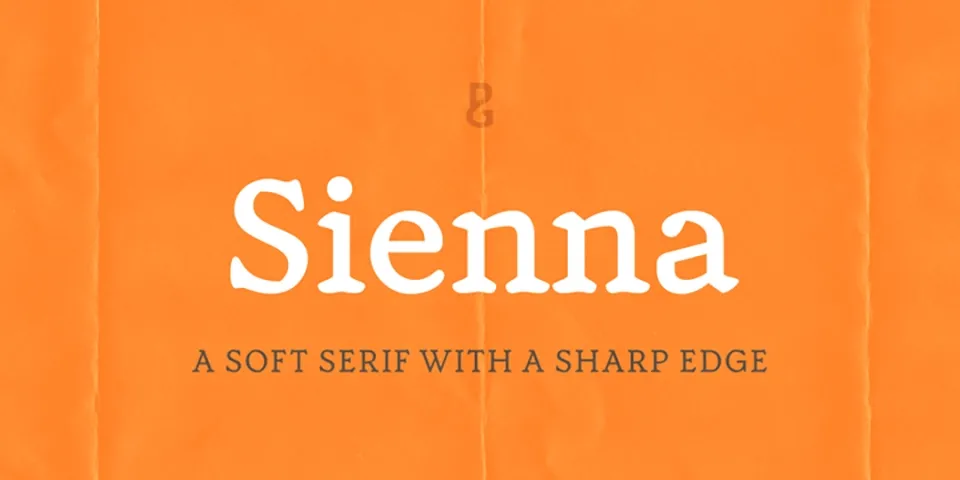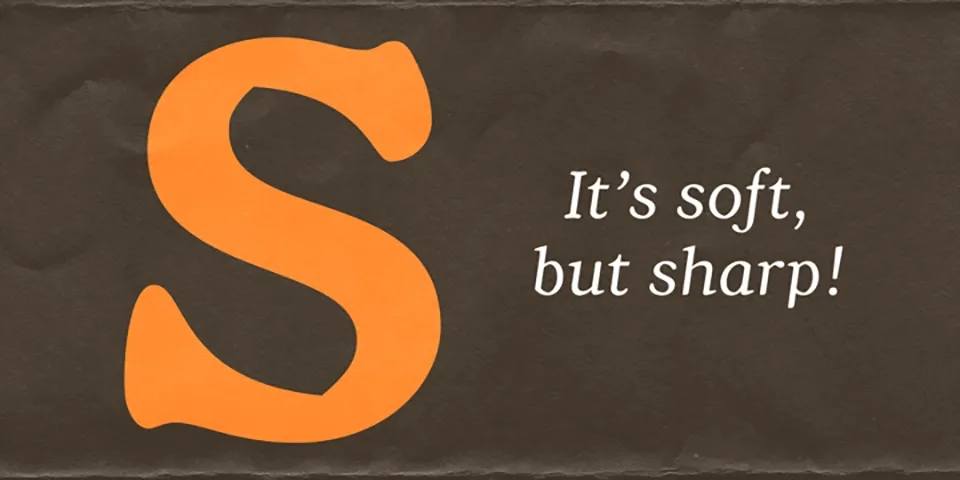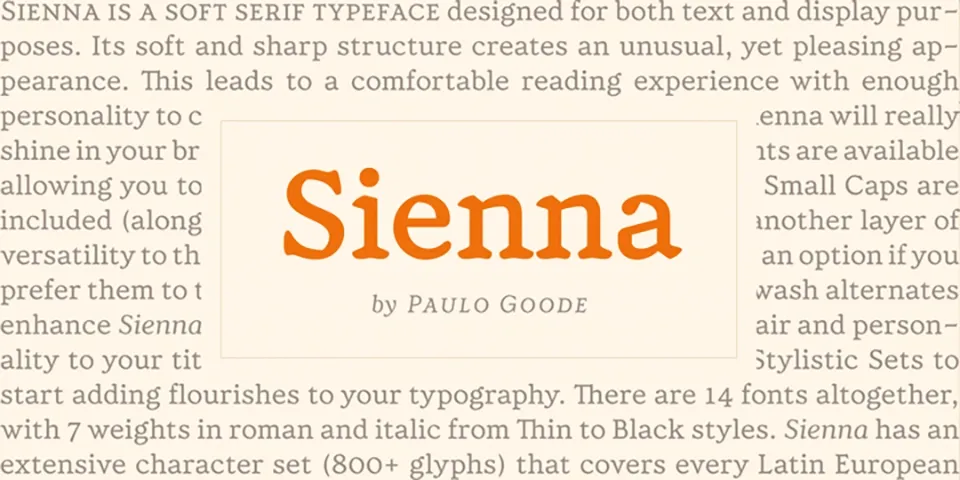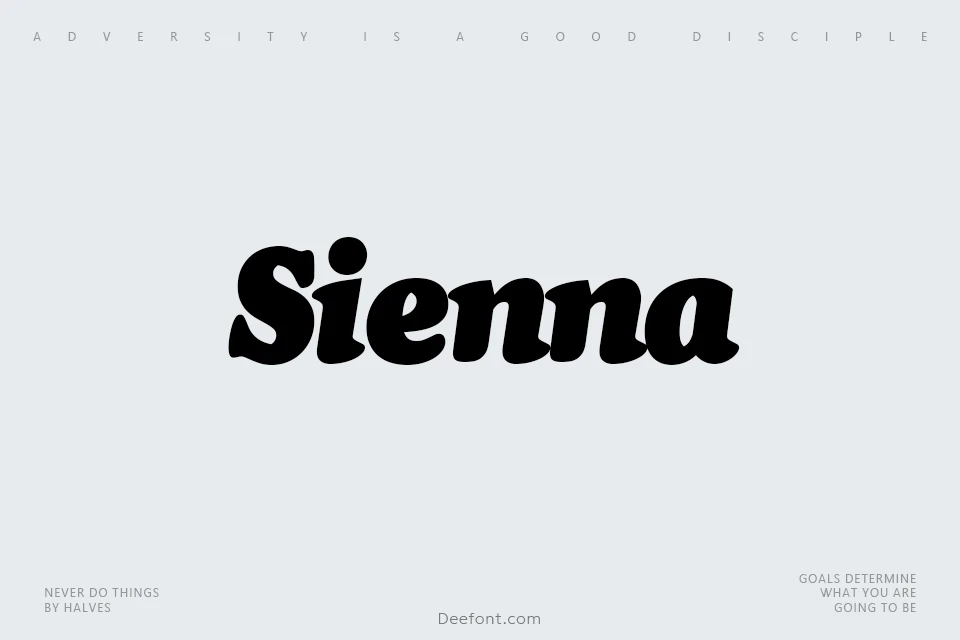
Sienna Font
Sienna is a soft serif typeface designed for both text and display purposes by Paulo Goode. Its soft and sharp structure creates an unusual, yet pleasing appearance that leads to a comfortable reading experience with enough personality to create impactful titles and headlines. Sienna will really shine in your branding projects, offering variable versions that allow you to fine-tune the weight to your exact liking. The typeface includes Small Caps with matching diacritics, adding another layer of versatility. There are 14 fonts altogether, with 7 weights in roman and italic from Thin to Black styles. Sienna has an extensive character set with 800+ glyphs that covers every Latin European language. The font features 59 alternates, 8 ligatures, and swash alternates that enhance the typeface, giving you the opportunity to add more flair and personality to your title and branding designs.